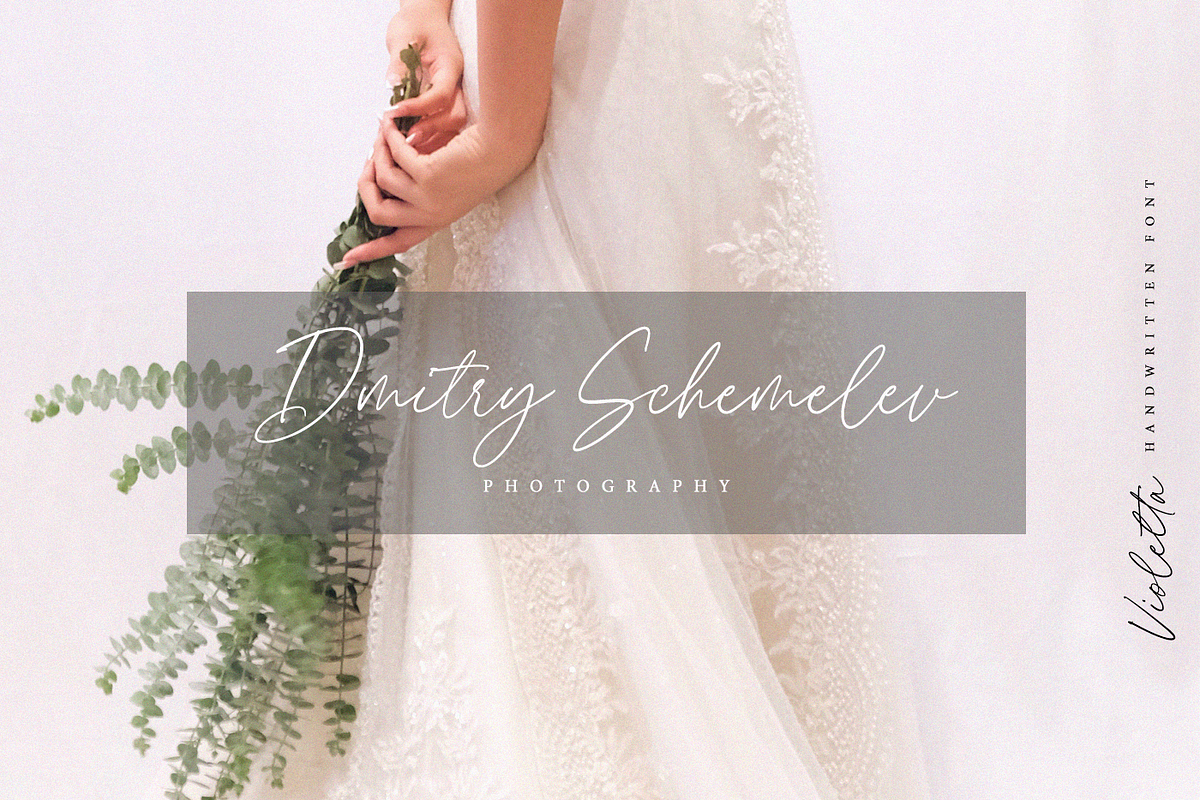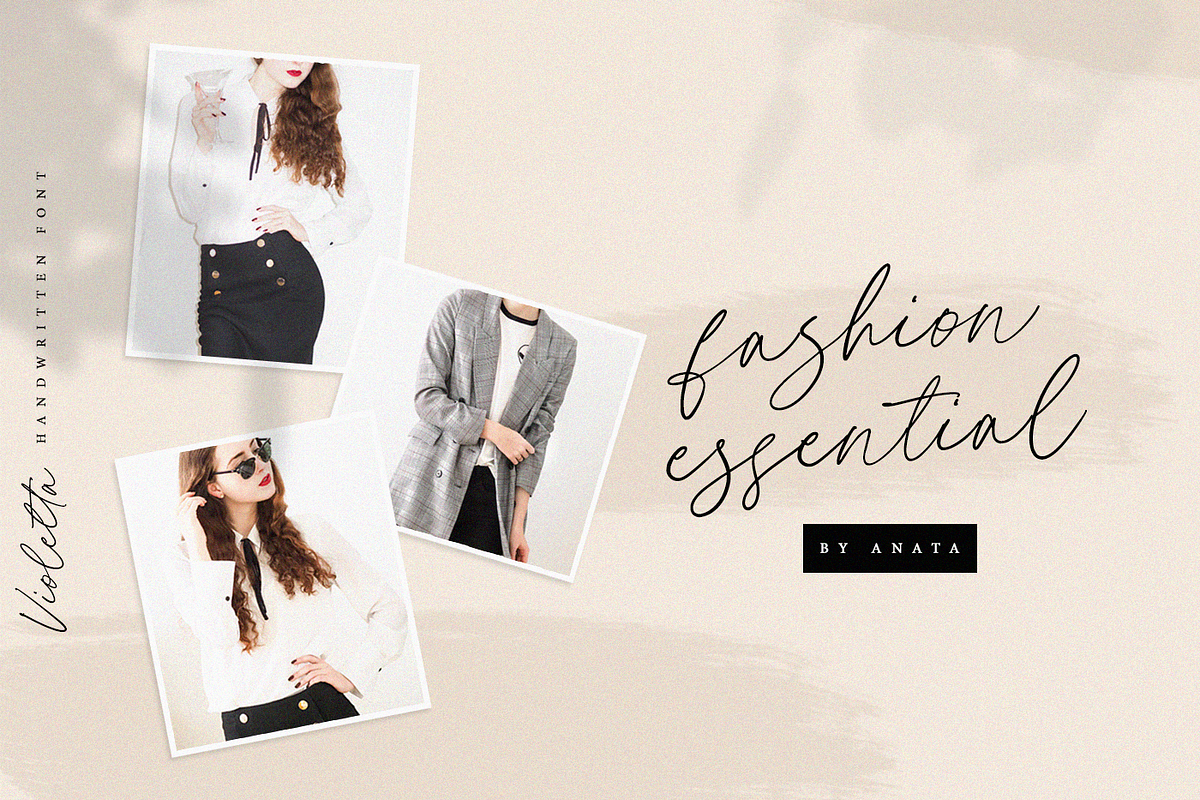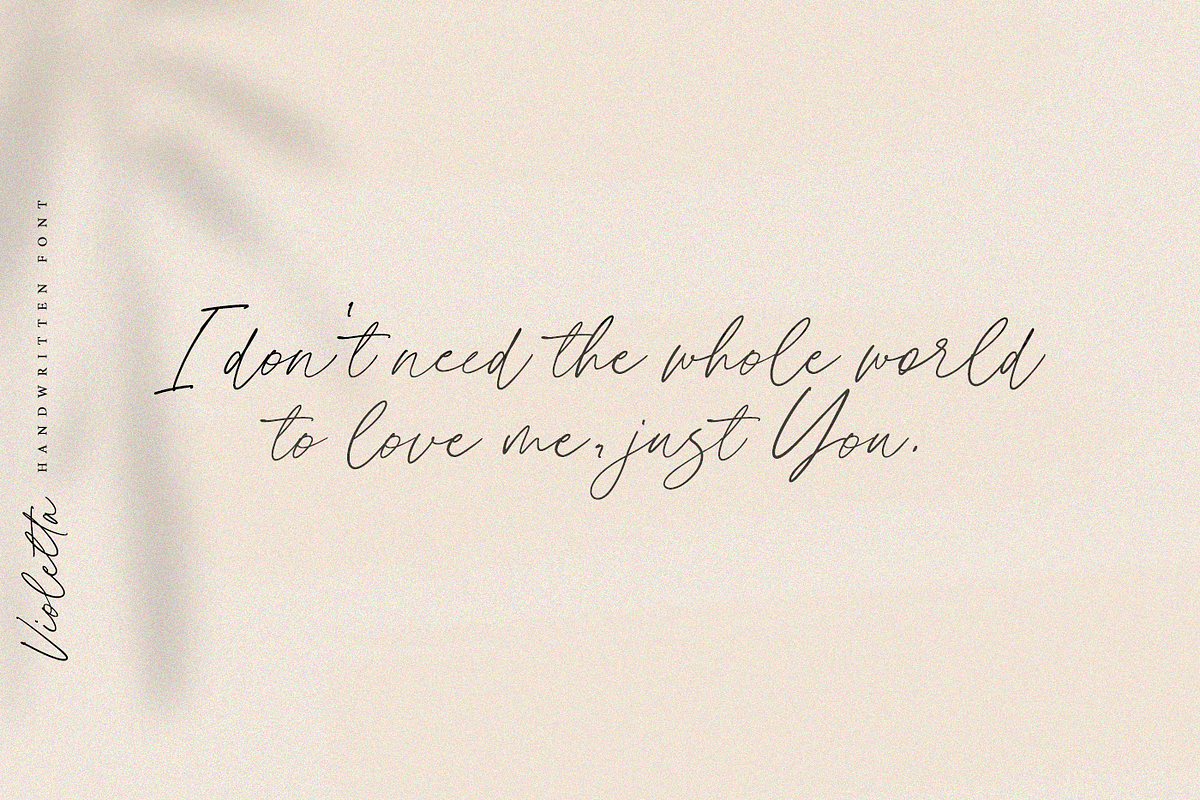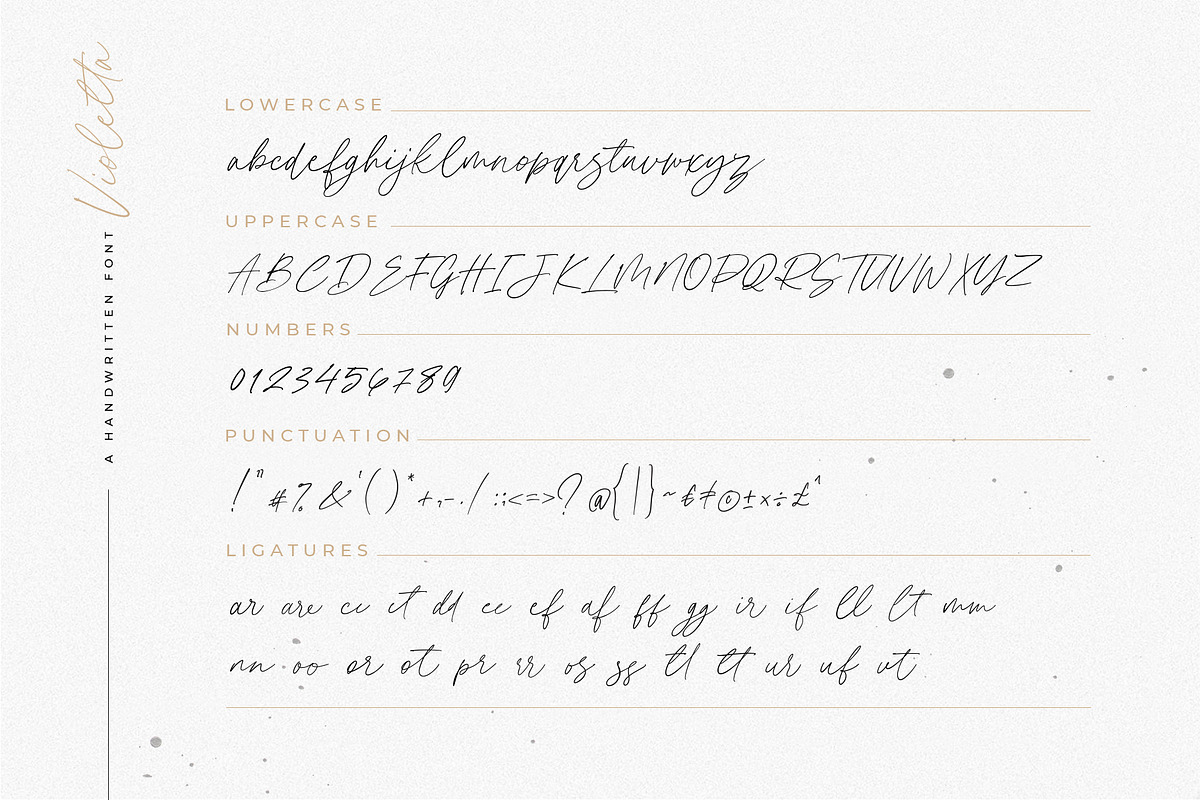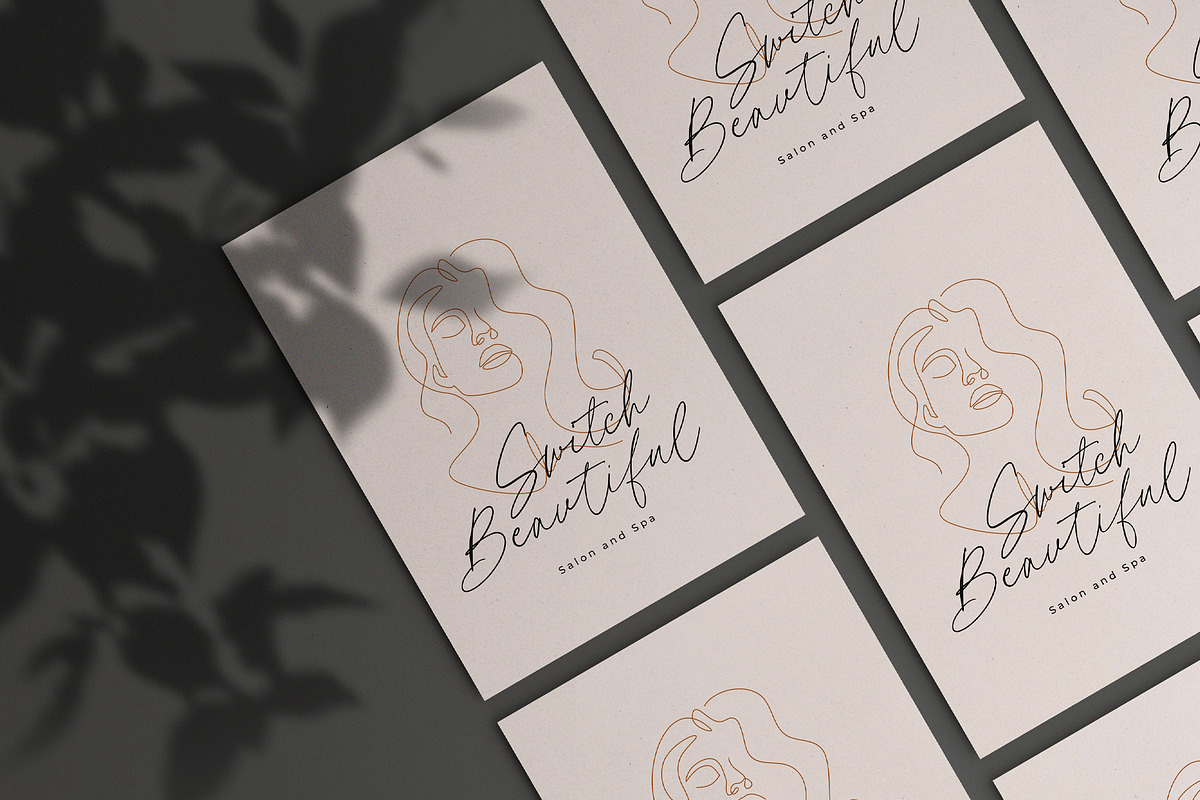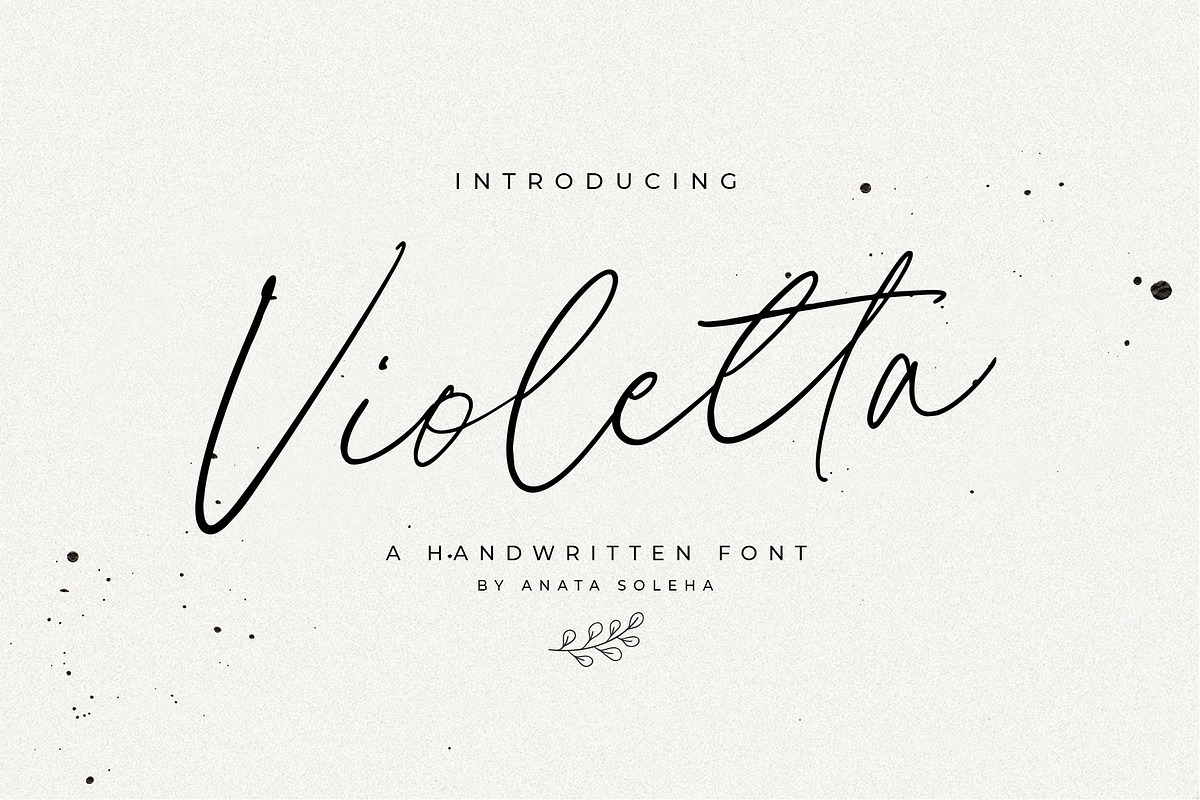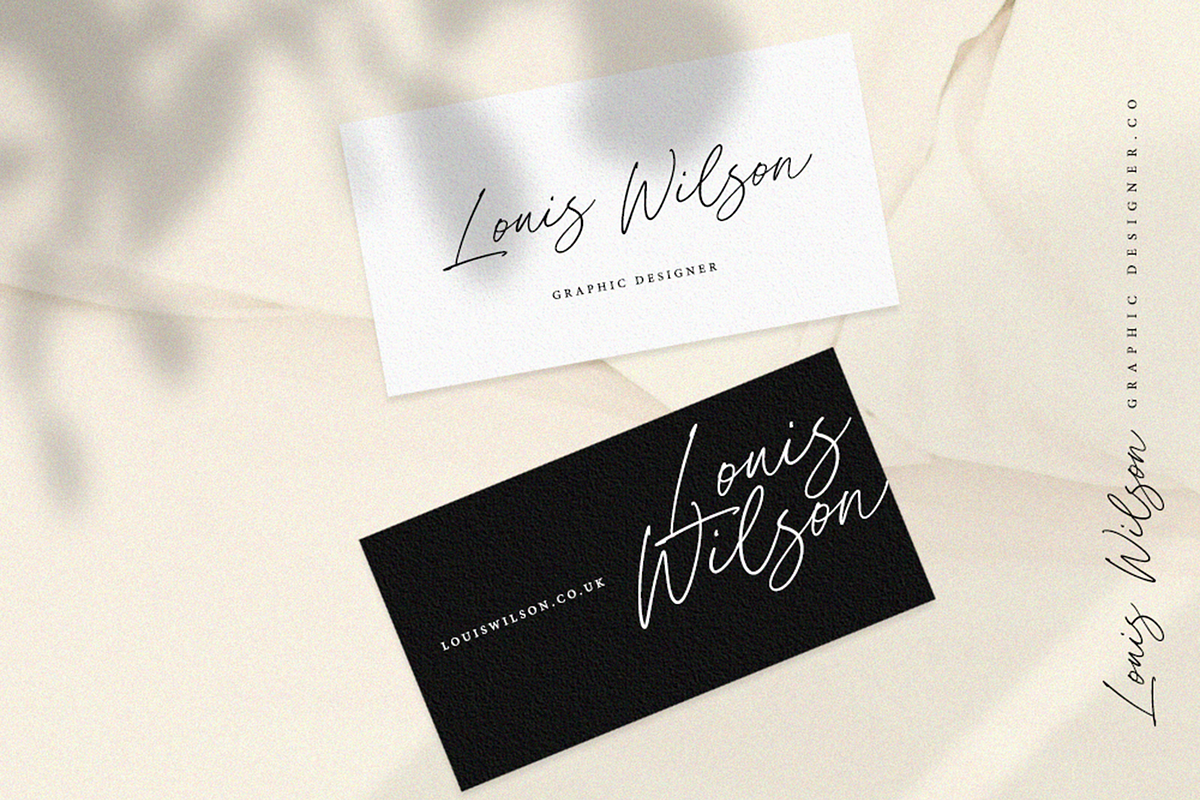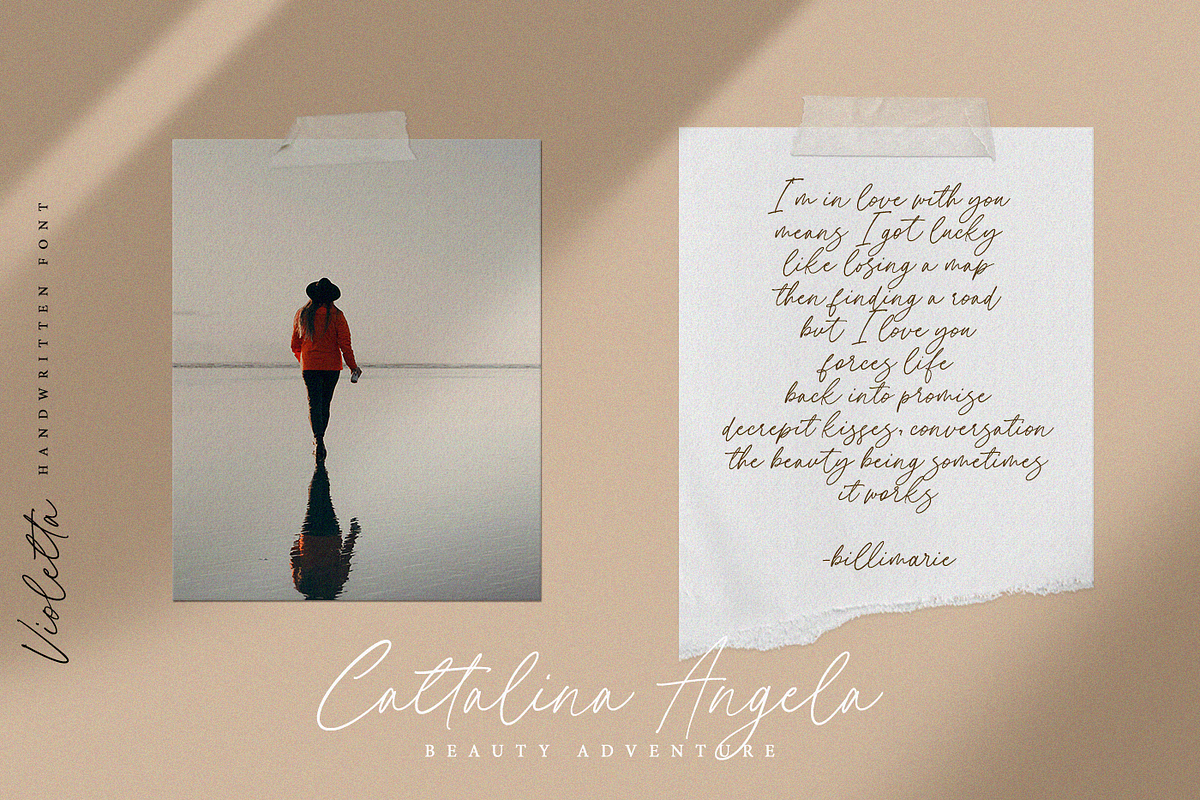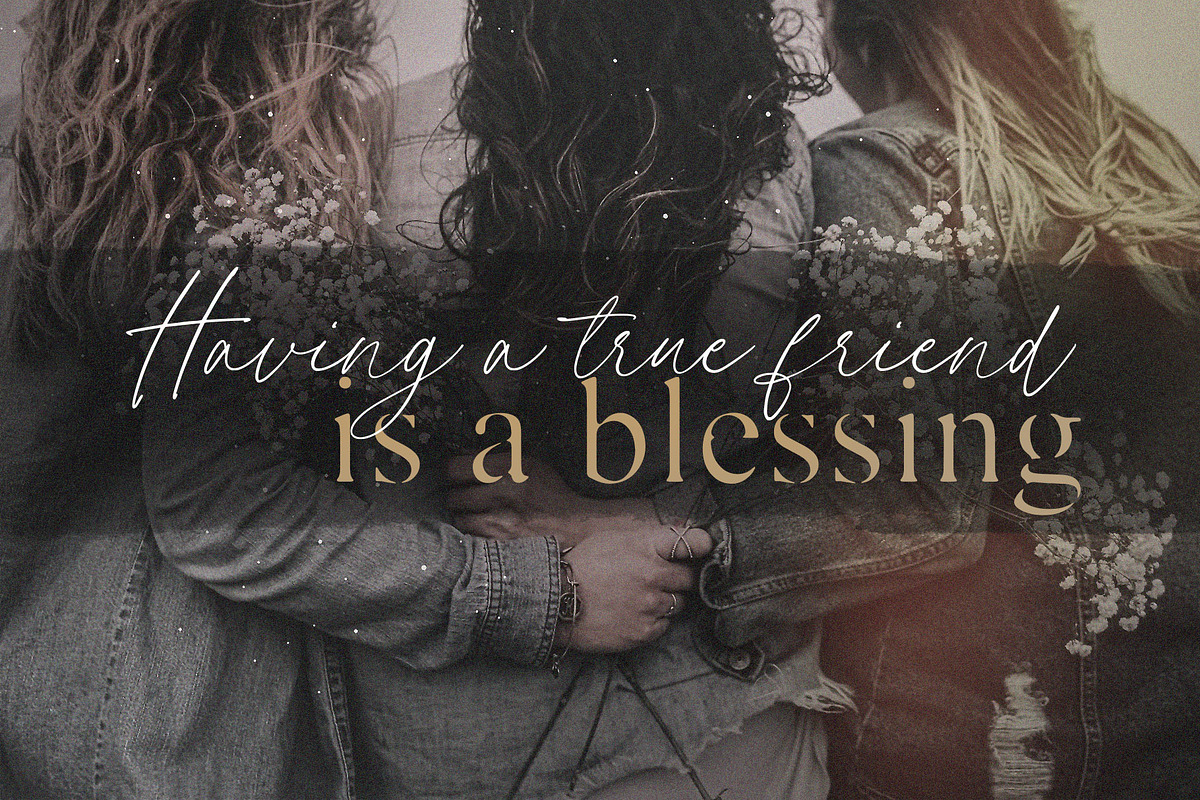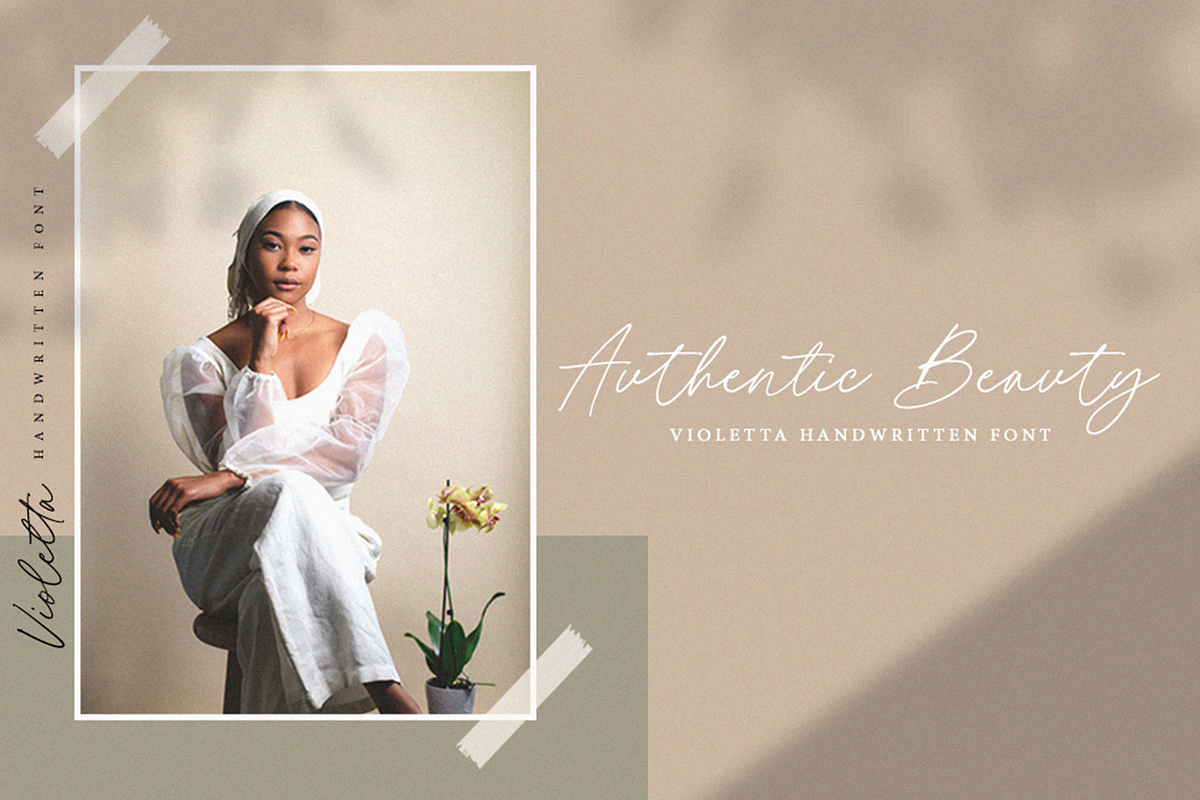
Hello!! Introducing classy signature font!!
Violetta stylish modern calligraphy font with classy style. It is perfect for branding, wedding invites and cards, gorgeous logos, posters, blog posts, social media, and more!
Violetta includes full set of gorgeous uppercase and lowercase letters, numerals, a large range of punctuation and ligatures.